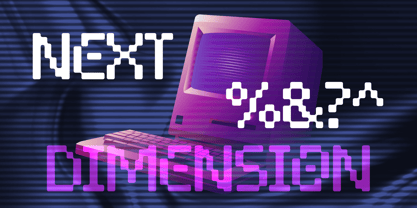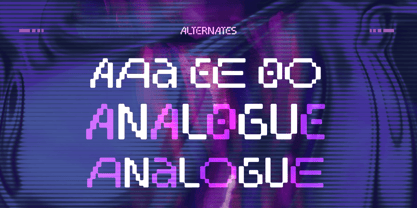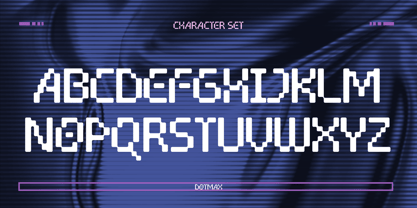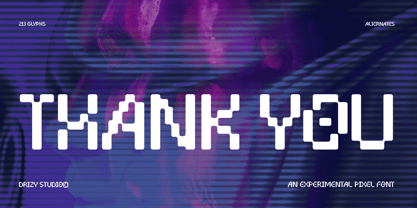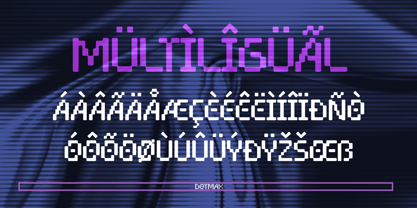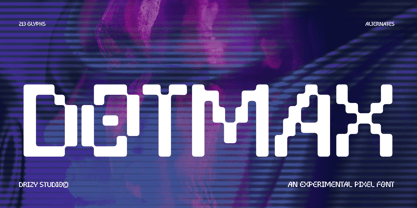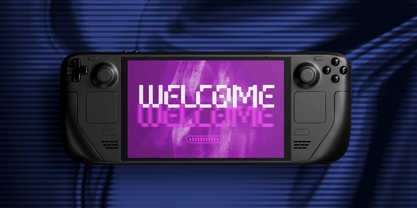
Dotmax
by Drizy Font
The Dotmax Font Family was designed by Panca Ahmadi Hasan and published by Drizy Font. Dotmax contains 1 styles.
Dotmax – Random Pixel Font is a quirky and modern typeface made from scattered pixel dots, giving your text a fun, digital-inspired look. With its unique random pixel font arrangement, this font adds a playful glitchy touch that’s perfect for retro games, tech posters, futuristic branding, and creative digital projects. Dotmax – Random Pixel Font features: Uppercase & Lowercase Punctuation & Numbers Multilingual Ligatures Alternate Elevate and explore the design possibilities with this Random Pixel Font!
Designers: Panca Ahmadi Hasan
Publisher: Drizy Font
Foundry: Drizy Font
Design Owner: Drizy Font